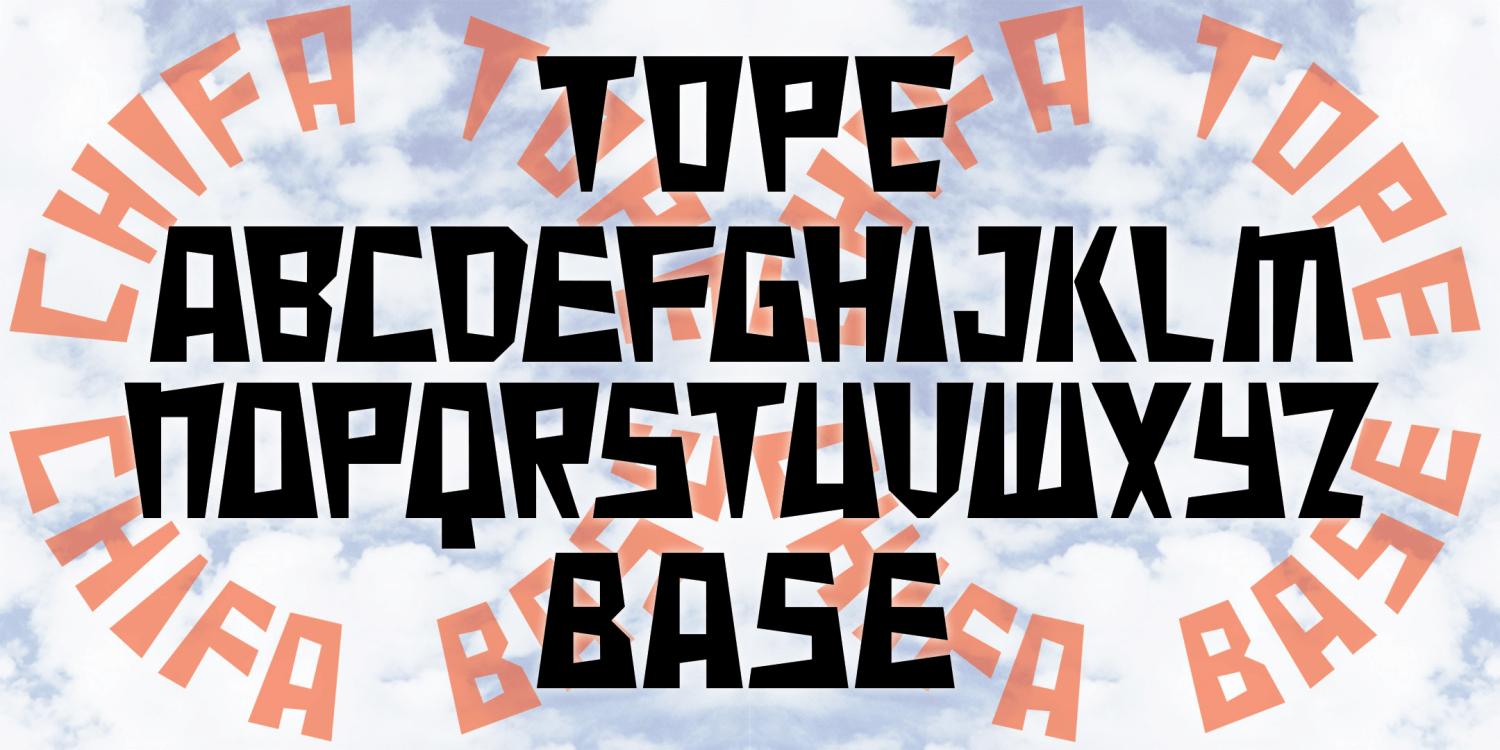
Chifa
CHIFA is a set of fonts combining the trapezoid of Inca architecture with wedge-shaped strokes. Chifa Base has the wide side at the base and Chifa Tope has the weight at the top, making them well-suited for arranging text in a circle. Chifa Combo combines both styles in a single, easy-to-use font; if you TyPe LiKe ThIs, the letters automatically fit together.